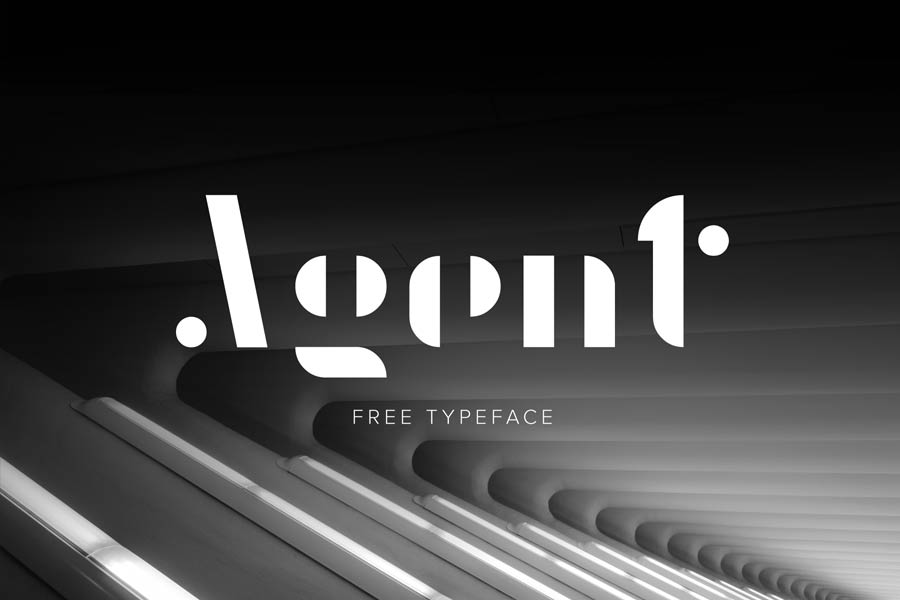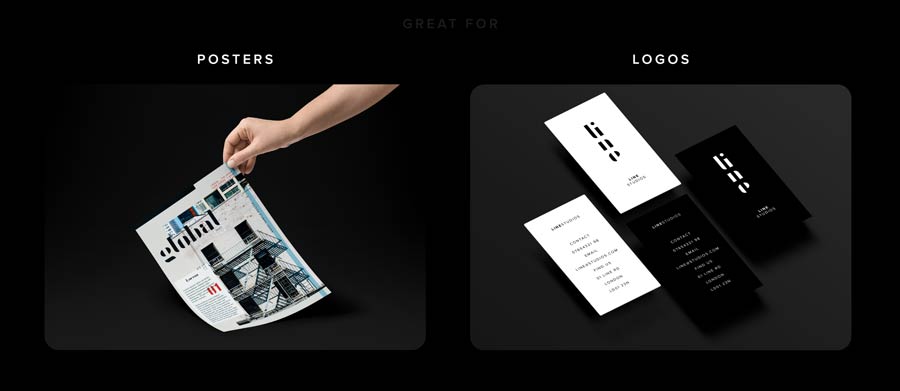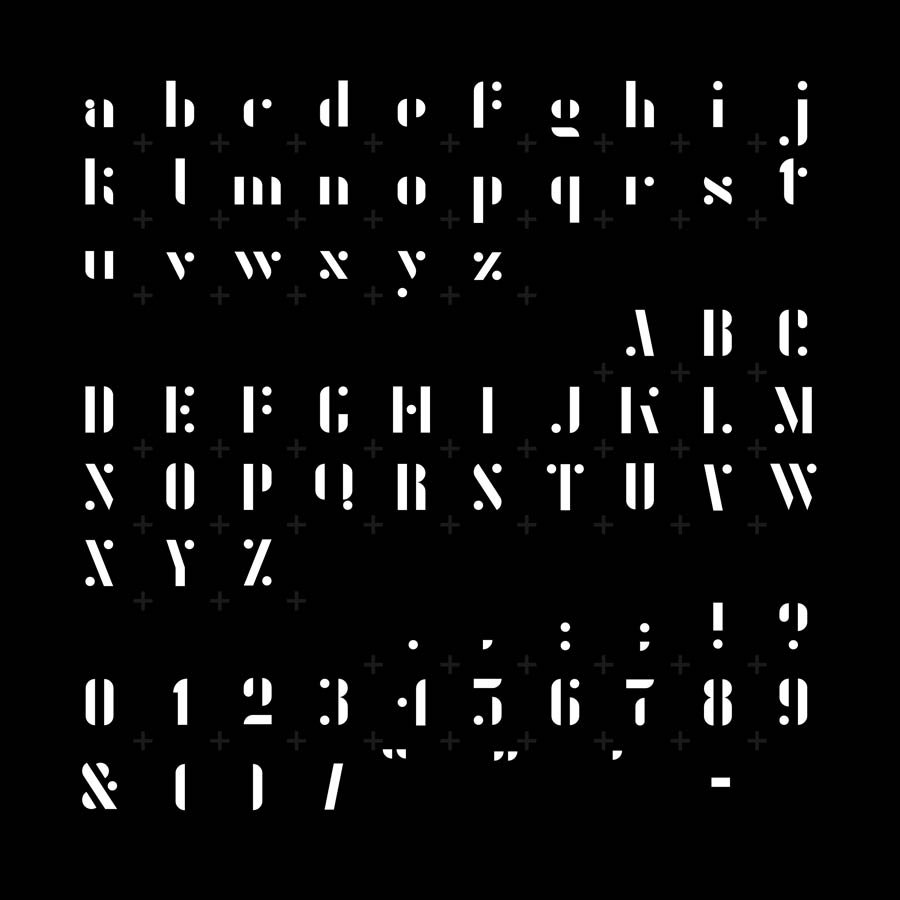
Agent is a abstract, cool looking typeface that is perfect for big displays. Agent would look great on your design posters, for your logotype and you can even use it for decorative purposes. It is definitely an awesome font to bring out the “design-ness”.